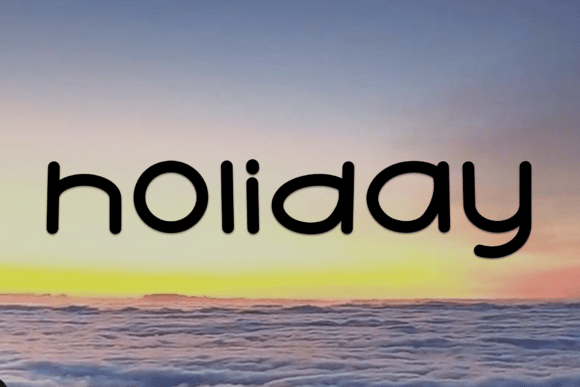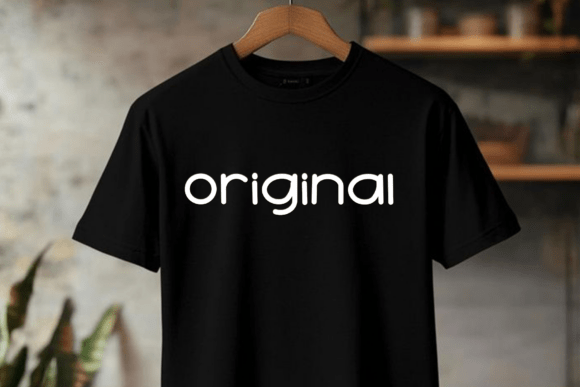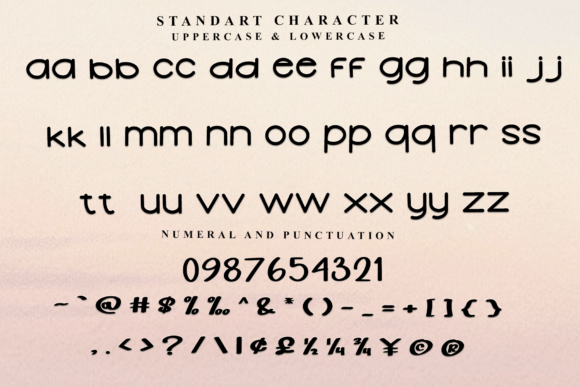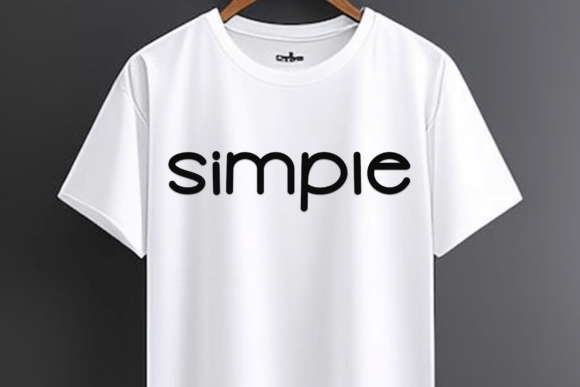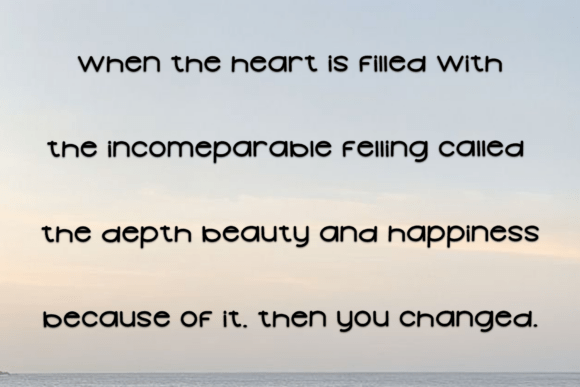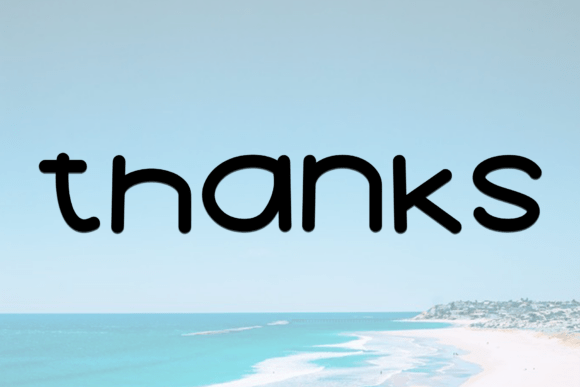
Introducing Beach Font: A Beautiful and Versatile Typeface for Creative Projects
Are you looking for a font that can add a touch of elegance and uniqueness to your design projects? Look no further than Beach Font, a stunning typeface designed with a soft, distinctive touch. With its eye-catching appearance and versatile nature, Beach Font is perfect for a wide range of creative applications, from crafts and designs to artistic and commercial projects.
What Makes Beach Font Special?
Beach Font stands out from the crowd with its unique strokes, which give it a special character that sets it apart from other fonts. Its distinctive appearance makes it a meaningful and versatile font that can be used in various contexts, from formal to informal designs. Whether you’re working on a logo, a poster, or a digital project, Beach Font is sure to make a lasting impression.
Key Features of Beach Font
- Unique and Eye-Catching Design: Beach Font boasts a soft, distinctive touch that makes it perfect for designs that require a touch of elegance and sophistication.
- Versatile and Meaningful: With its special character, Beach Font is a versatile font that can be used in various creative projects, from crafts to commercial designs.
- Wide Range of Characters: Beach Font comes with a variety of characters, making it perfect for designs that require a range of typographic options.
Beach Font is a dream come true for designers and crafters who are looking for a font that can add a touch of personality to their projects. With its unique design and versatile nature, Beach Font is perfect for a wide range of creative applications, including:
- Logo Design: Beach Font is perfect for creating stunning logos that require a touch of elegance and sophistication.
- Poster Design: With its eye-catching appearance, Beach Font is perfect for creating posters that grab attention and leave a lasting impression.
- Crafts and DIY Projects: Beach Font is perfect for crafters who want to add a personal touch to their DIY projects, from scrapbooking to woodworking.
- Digital Design: Beach Font is perfect for digital designers who want to create stunning digital projects, from social media graphics to website headers.
Why Choose Beach Font?
With so many fonts available, why choose Beach Font? Here are just a few reasons why Beach Font stands out from the crowd:
- Unique Design: Beach Font boasts a unique design that sets it apart from other fonts.
- Versatility: Beach Font is a versatile font that can be used in various creative projects.
- Ease of Use: Beach Font is easy to use, even for designers and crafters who are new to typography.
In conclusion, Beach Font is a beautiful and versatile typeface that is perfect for designers and crafters who want to add a touch of elegance and uniqueness to their projects. With its unique design, versatile nature, and compatibility with various applications, Beach Font is an excellent choice for a wide range of creative applications. Whether you’re working on a logo, a poster, or a digital project, Beach Font is sure to make a lasting impression.